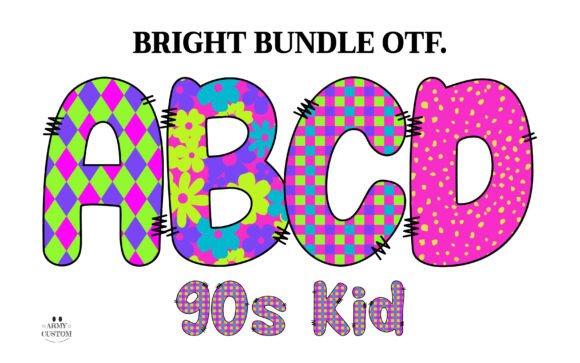
Bright Army Font: A Vibrant Color Font Collection for Your Creative Projects
The ’90s were a time of bold fashion, bright colors, and playful designs. If you’re looking to add a touch of nostalgia to your creative projects, look no further than the Bright Army Font. In this article, we’ll explore the Bright Alphabet Bundle OTF, a vibrant color font collection that channels the energetic spirit of the ’90s through four fun type styles.
What is the Bright Alphabet Bundle OTF?
The Bright Alphabet Bundle OTF is a collection of four energetic type styles, each fully rendered in color with hand-stitched outlines. The fonts feature vivid, nostalgic patterns like checkerboards, polka dots, florals, and painterly brushstrokes, giving them a unique and playful feel. The bundle includes four different type styles, making it perfect for a wide range of creative projects.
Key Features of the Bright Alphabet Bundle OTF
- Vibrant Color Fonts: Each glyph is fully rendered in color, giving the fonts a bold and eye-catching appearance.
- Hand-Stitched Outlines: The fonts feature hand-stitched outlines with vivid, nostalgic patterns like checkerboards, polka dots, florals, and painterly brushstrokes.
- Four Energetic Type Styles: The bundle includes four different type styles, making it perfect for a wide range of creative projects.
- Display-Oriented: The fonts are designed for display purposes, making them ideal for headlines, stickers, children’s products, school-themed graphics, and retro-style branding.
- Layered Textures: The fonts feature layered textures and a soft, cartoonish silhouette, giving them a unique and playful feel.
What Can I Use the Bright Army Font For?
The Bright Alphabet Bundle OTF is a versatile font collection that can be used for a wide range of creative projects. Here are some ideas to get you started:
Project Ideas for the Bright Alphabet Bundle OTF
- Headlines and Titles: Use the Bright Army Font to create bold and eye-catching headlines and titles for your blog posts, articles, and social media graphics.
- Stickers and Labels: The font’s playful and colorful design makes it perfect for stickers and labels for kids’ projects, parties, and events.
- Children’s Products: Use the Bright Army Font to create fun and engaging designs for children’s products, such as toys, books, and educational materials.
- School-Themed Graphics: The font’s nostalgic feel makes it perfect for school-themed graphics, such as posters, flyers, and brochures.
- Retro-Style Branding: Use the Bright Army Font to create retro-style branding for your business or product, adding a touch of nostalgia and playfulness to your design.
Tips for Using the Bright Army Font
Here are some tips for using the Bright Army Font in your creative projects:
Tips and Tricks
- Experiment with Different Colors: The Bright Army Font is fully rendered in color, so don’t be afraid to experiment with different colors and combinations to find the perfect look for your project.
- Use it for Display Purposes: The font is designed for display purposes, so use it to create bold and eye-catching headlines and titles.
- Pair it with Other Fonts: The Bright Army Font can be paired with other fonts to create a unique and interesting design. Try pairing it with a simple sans-serif font for a bold and playful look.
The Bright Alphabet Bundle OTF is a vibrant color font collection that channels the bold, playful spirit of the ’90s. With its four energetic type styles, hand-stitched outlines, and vivid, nostalgic patterns, this font collection is perfect for a wide range of creative projects. Whether you’re looking to create bold headlines, fun stickers, or retro-style branding, the Bright Army Font is the perfect choice.